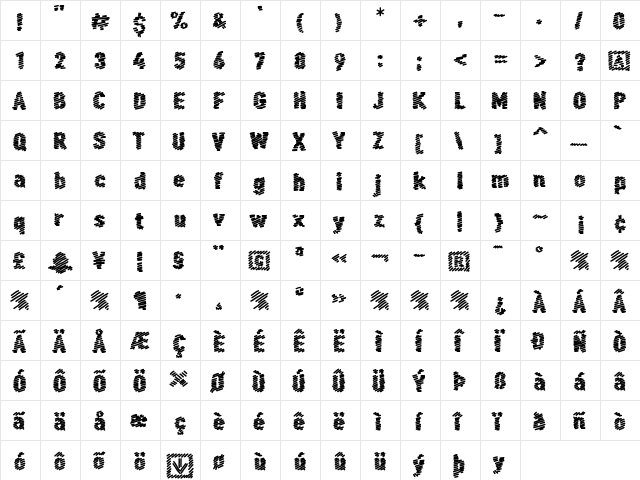
Scribble Bold
Design Context for Scribble Typeface
Scribble is a composed and adaptable typeface that performs quietly and consistently across a wide range of design contexts. The heavy weight commands attention and anchors typographic hierarchies.